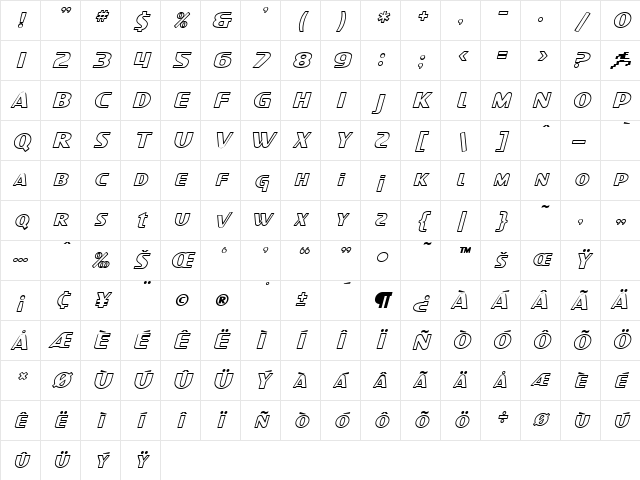
SF Intellivised Outline Italic Free Font
SF Intellivised Outline Italic
SF Intellivised Outline Family
SF Intellivised Outline Italic
Design Context for SF Intellivised Outline
SF Intellivised Outline is built around its visual character rather than neutral utility - its distinctive forms are designed to make an impression at display sizes. The slanted form adds forward momentum and visual energy.
Font Pairing: Pair with a clean neutral sans-serif for body copy to let SF Intellivised Outline's character lead without overwhelming the composition.
Pro Tip: Use SF Intellivised Outline exclusively at display sizes - it was designed to be seen, not read at length. Let a neutral companion handle body copy.